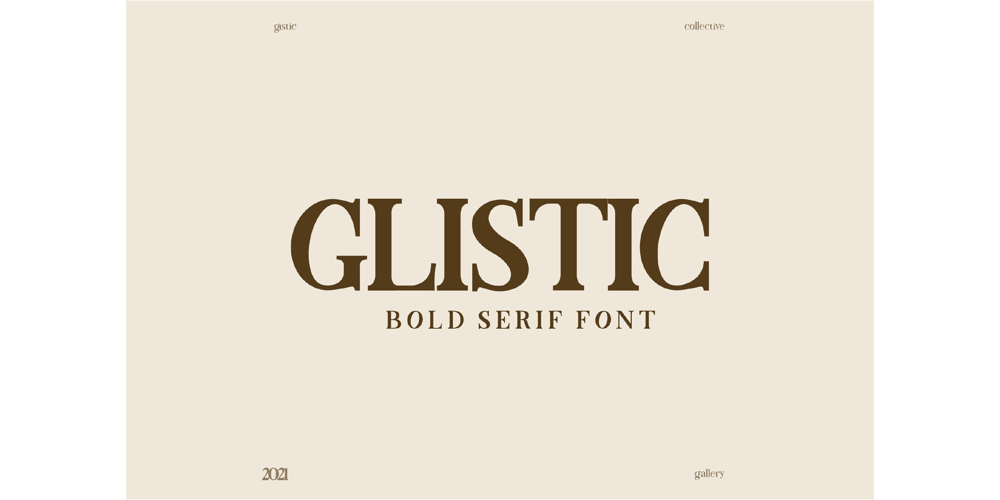
Glistic Bold Serif Font
Glistic Bold Serif Font Font Family was designed by Adrian Syauqi and published by Firstype Studio. Glistic Bold Serif Font contains 1 styles and family package options. Introducing Glistic, a robust serif font that combines bold classic aesthetics with a traditional charm. Glistic is the perfect choice for those seeking a timeless typeface that excels in magazines, large title posters, and various design projects. It’s available in multiple licensing options to suit your diverse design needs.Bold Classic Elegance:Glistic stands as a testament to classic typography, with its bold and robust letterforms. Its enduring elegance makes it an ideal choice for projects that demand a touch of timeless sophistication.Perfect for Magazines and Large Titles:Glistic’s commanding presence and traditional charm make it an excellent option for magazine layouts and attention-grabbing posters. Whether it’s headlines, subheadings, or body text, Glistic ensures your content exudes elegance.Traditional Charm:What sets Glistic apart is its traditional charm. It carries an air of sophistication and craftsmanship, making it suitable for projects that require a touch of heritage.Multiple Licensing Options:We understand that different projects have different licensing requirements. That’s why Glistic is available in various licensing options, including personal, commercial, and extended licenses. Choose the one that aligns with your specific project.Elevate Your Typography:With Glistic, you’re not just selecting a font; you’re elevating your typography to a level of timeless grace and tradition.Choose Your License:Explore our licensing options and select the one that aligns with your project’s needs. Whether you’re a designer, publisher, or creative enthusiast, Glistic has a license that fits your requirements.Enhance Your Designs with Glistic – Where Bold Classic Meets Traditional Elegance.This description emphasizes the bold classic elegance and traditional charm of the “Glistic” serif font, its suitability for magazines and large titles, and the availability of multiple licensing options to cater to different users.